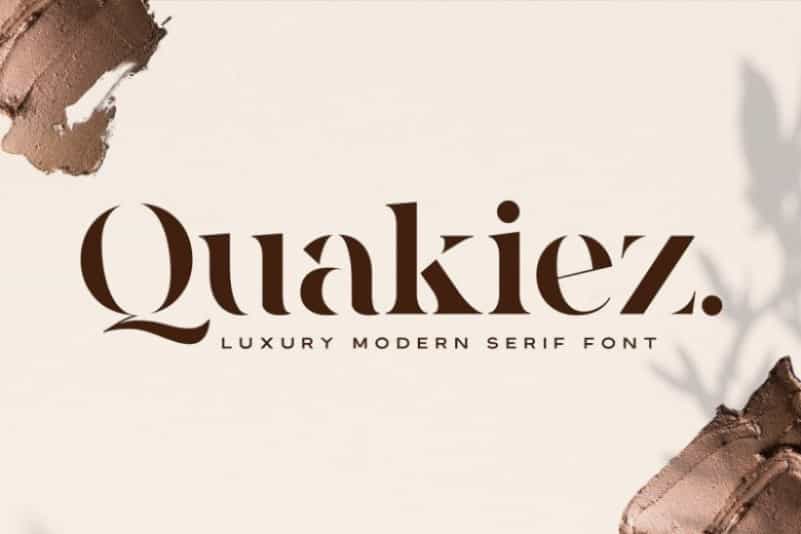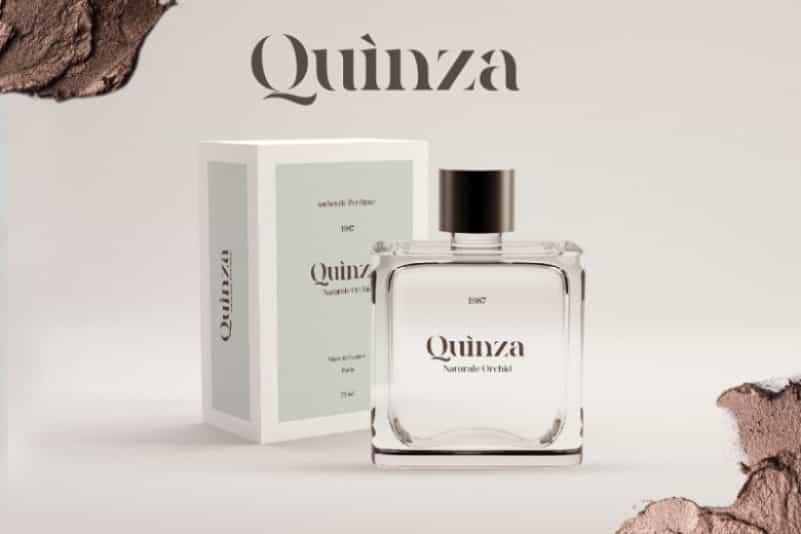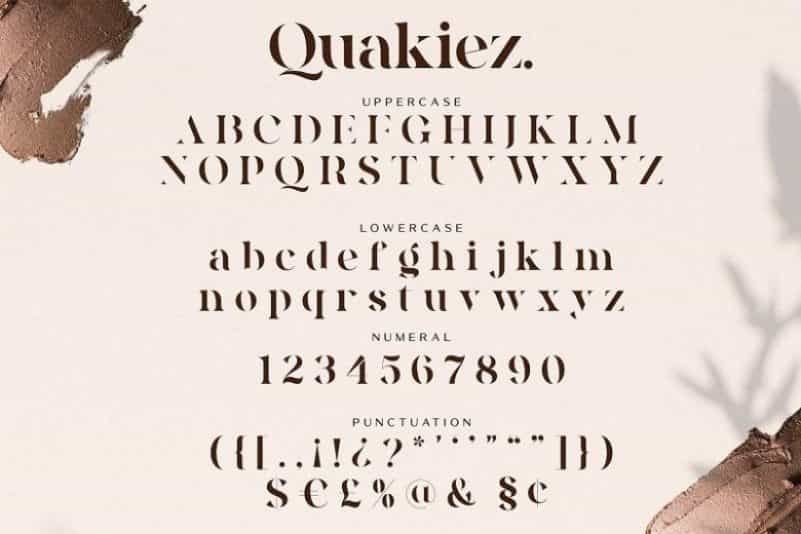
Quakiez Luxury Modern Serif Font
Quakiez – a modern serif font with a stylish touch inspired by the famous minimalist logo and Quakiez has 2 regular and display styles is perfect for the purposes of designing templates, brochures, videos, advertising branding, logos etc.